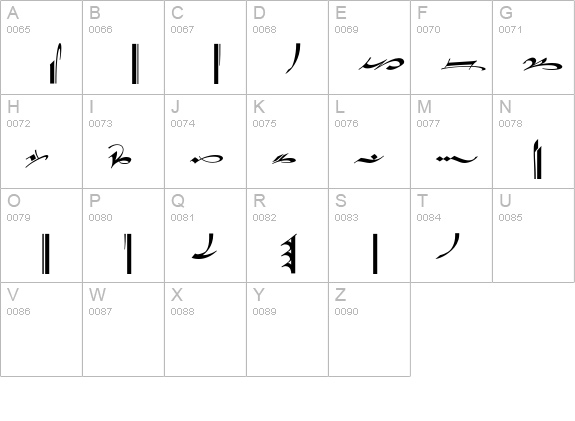
Notre Dame Ornaments Font Details
Introducing Notre Dame Ornaments font, a beautifully crafted typeface that exudes elegance and sophistication. This ornate font features intricate designs inspired by the timeless architecture of Notre Dame Cathedral, making it perfect for adding a touch of charm to your projects. Notre Dame Ornaments font is meticulously designed to evoke a sense of grandeur and opulence, making it ideal for invitations, stationery, and other creative projects that call for a touch of old-world glamour. The delicate details and intricate flourishes of this font will surely captivate your audience and leave a lasting impression. Best of all, Notre Dame Ornaments font is available for free download at FontsMarket.com. So why wait? Add a touch of timeless beauty to your designs with this exquisite font today!